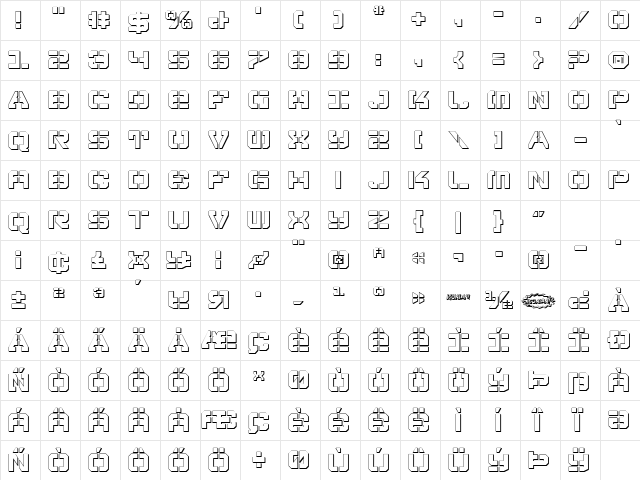
Vyper Shadow is built around its visual character rather than neutral utility - its distinctive forms are designed to make an impression at display sizes.
Font Pairing: Pair with a clean neutral sans-serif for body copy to let Vyper Shadow's character lead without overwhelming the composition.
Pro Tip: Use Vyper Shadow exclusively at display sizes - it was designed to be seen, not read at length. Let a neutral companion handle body copy.